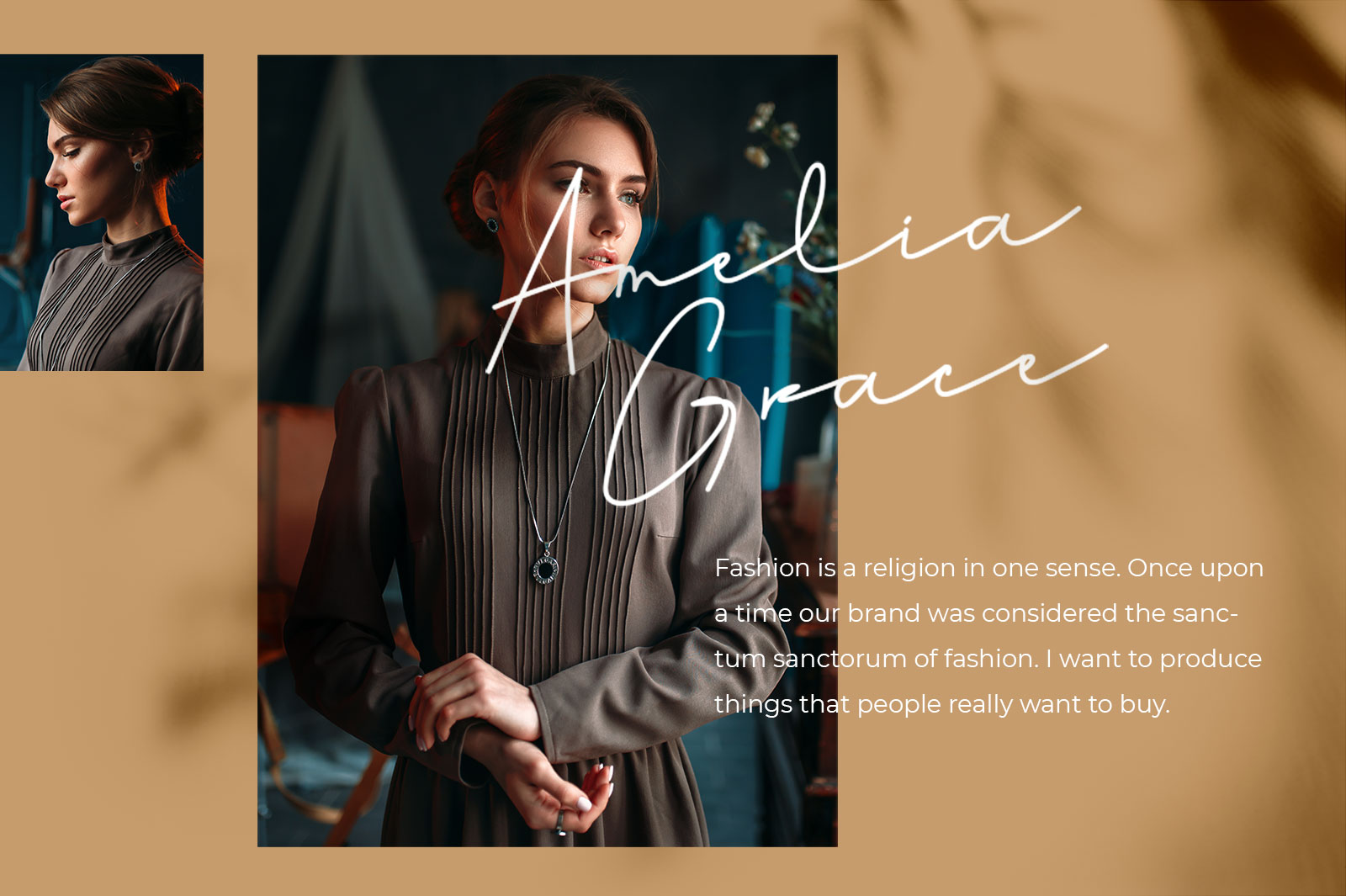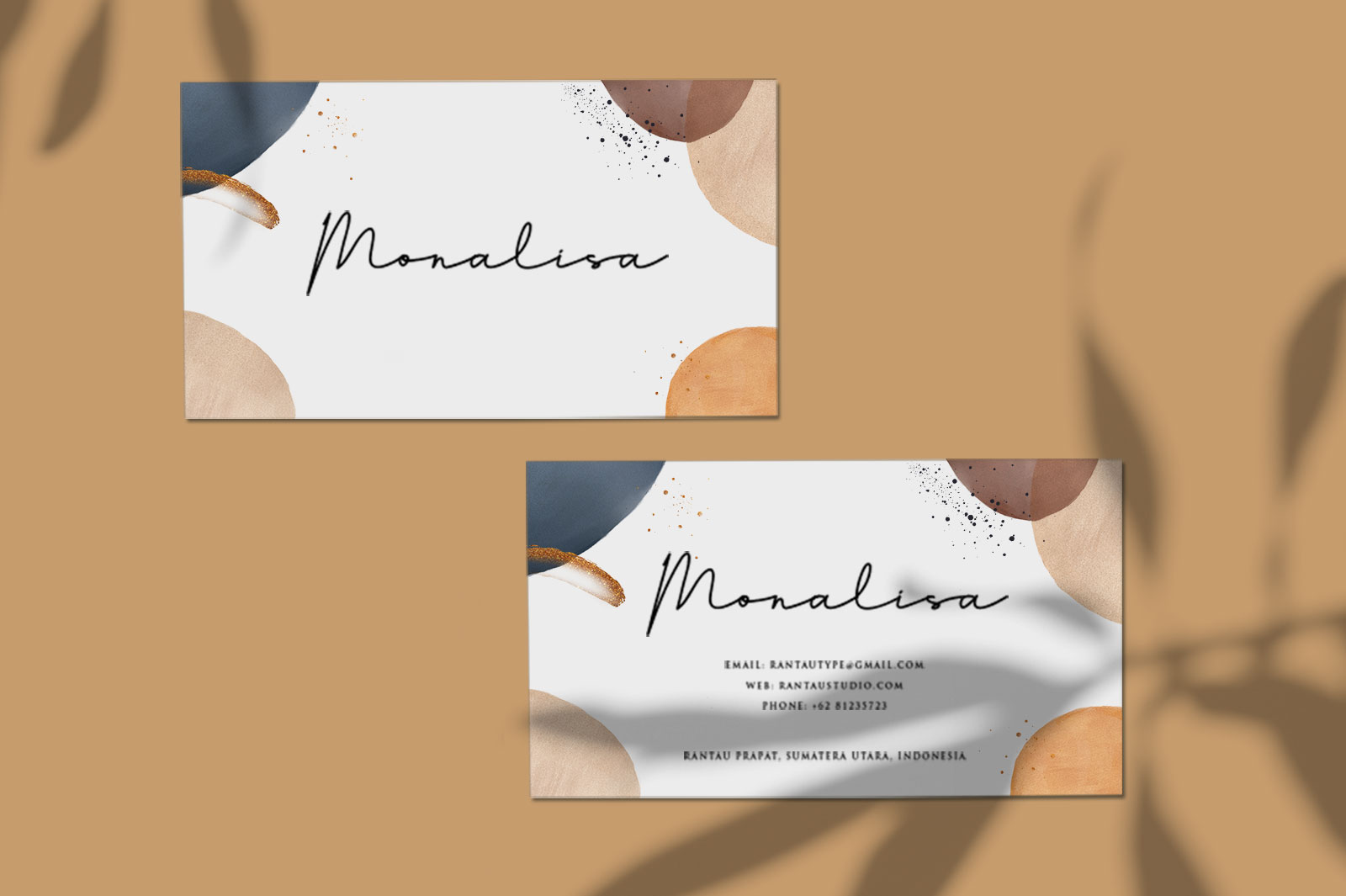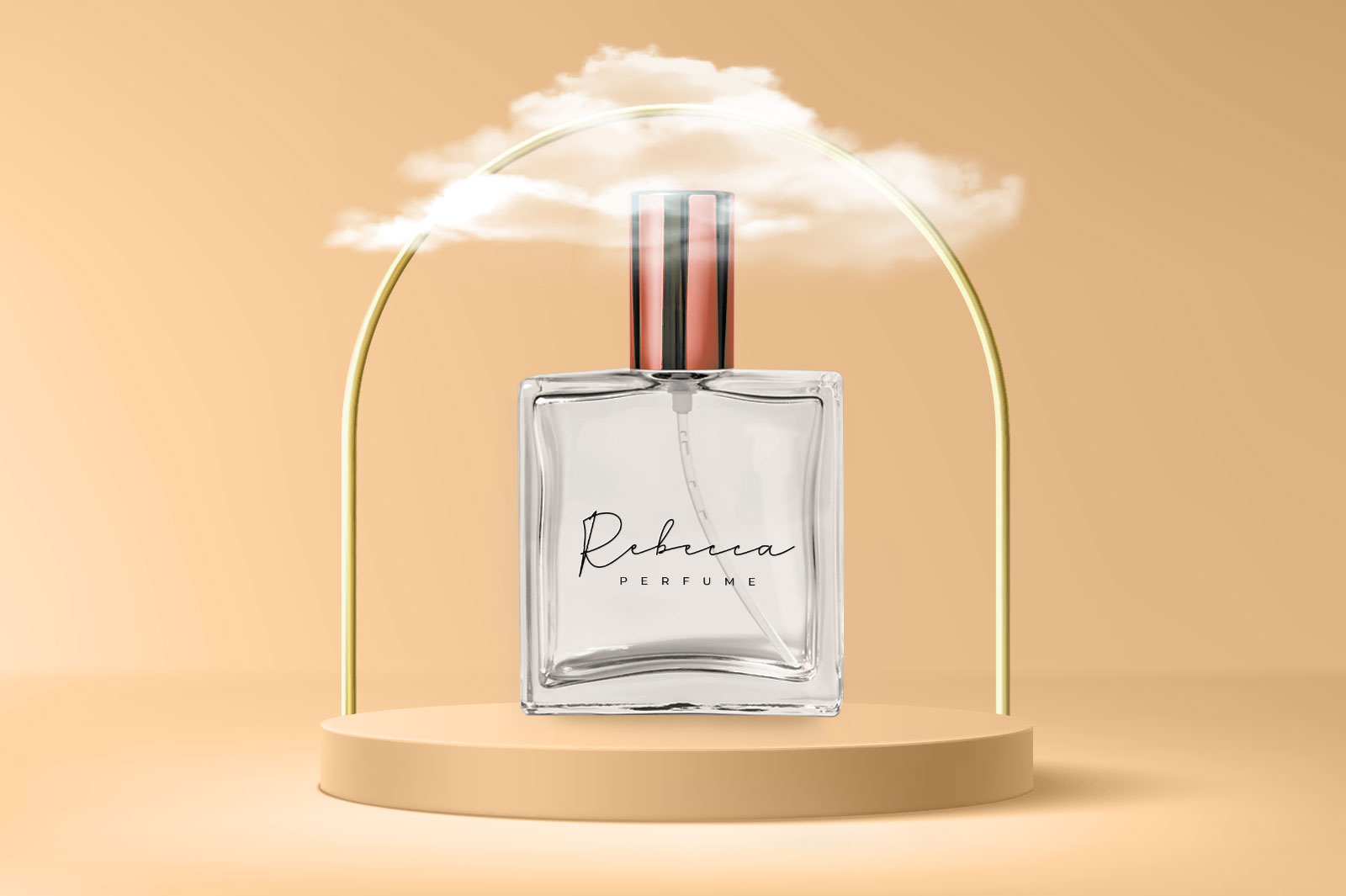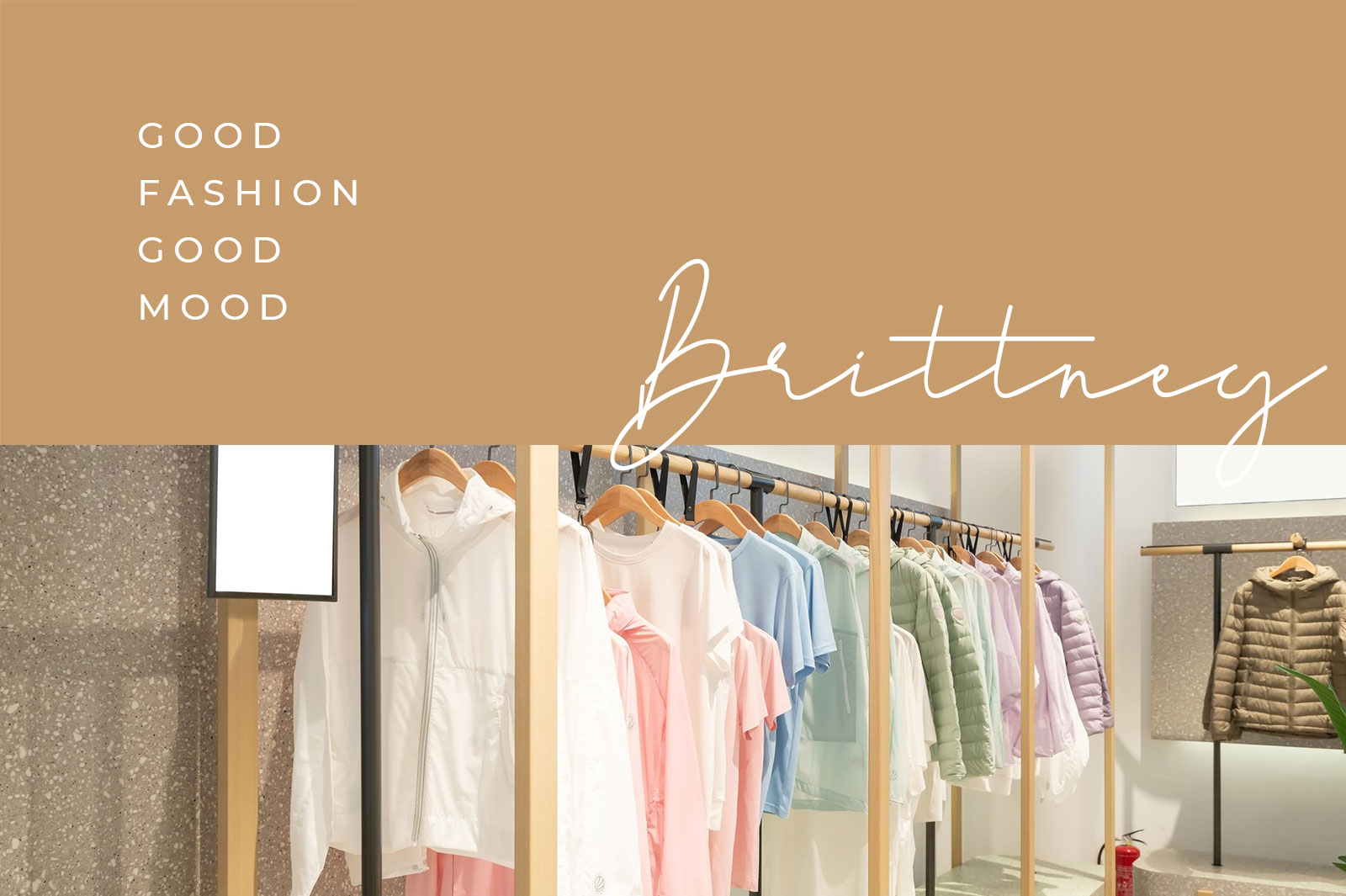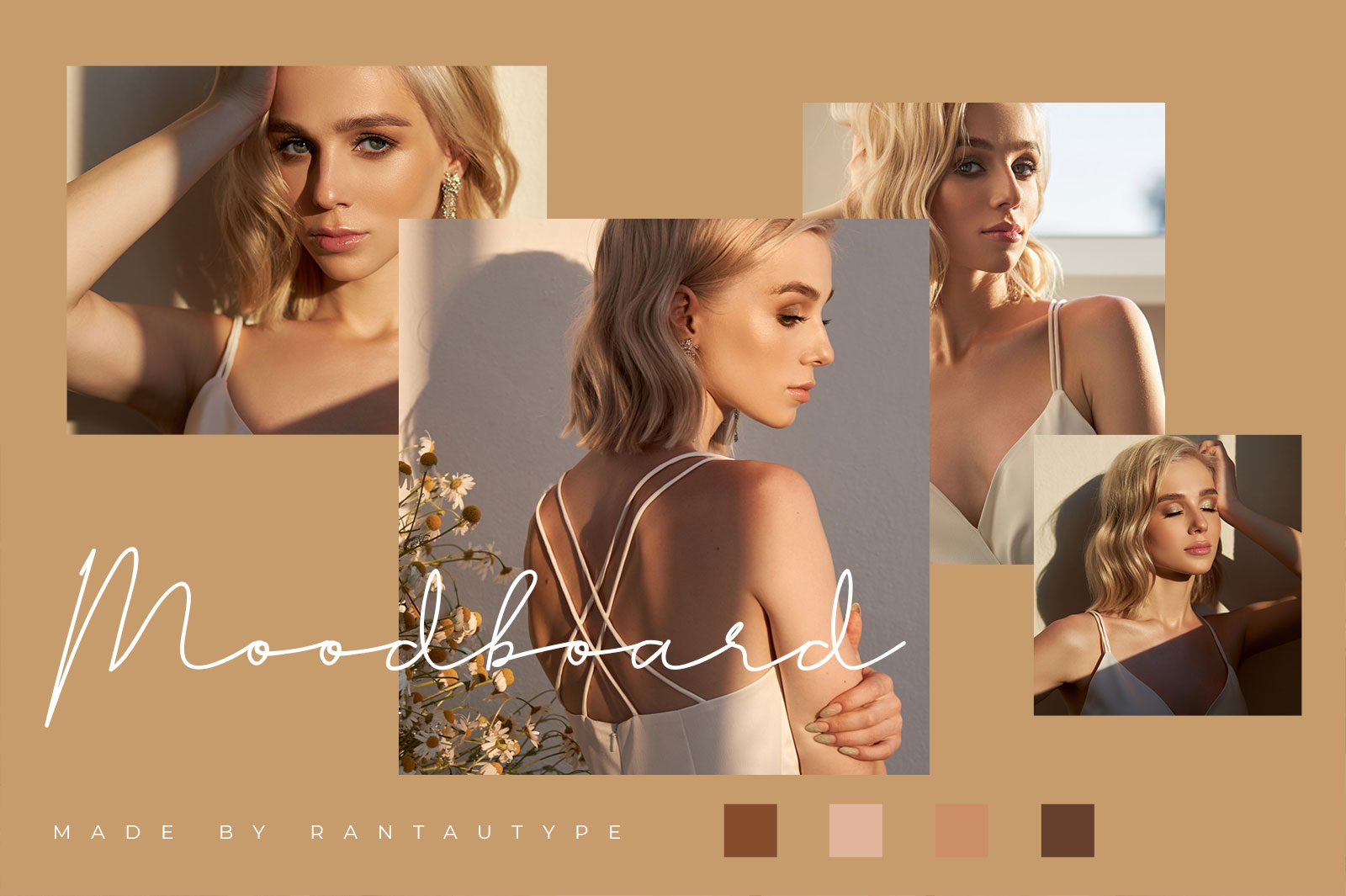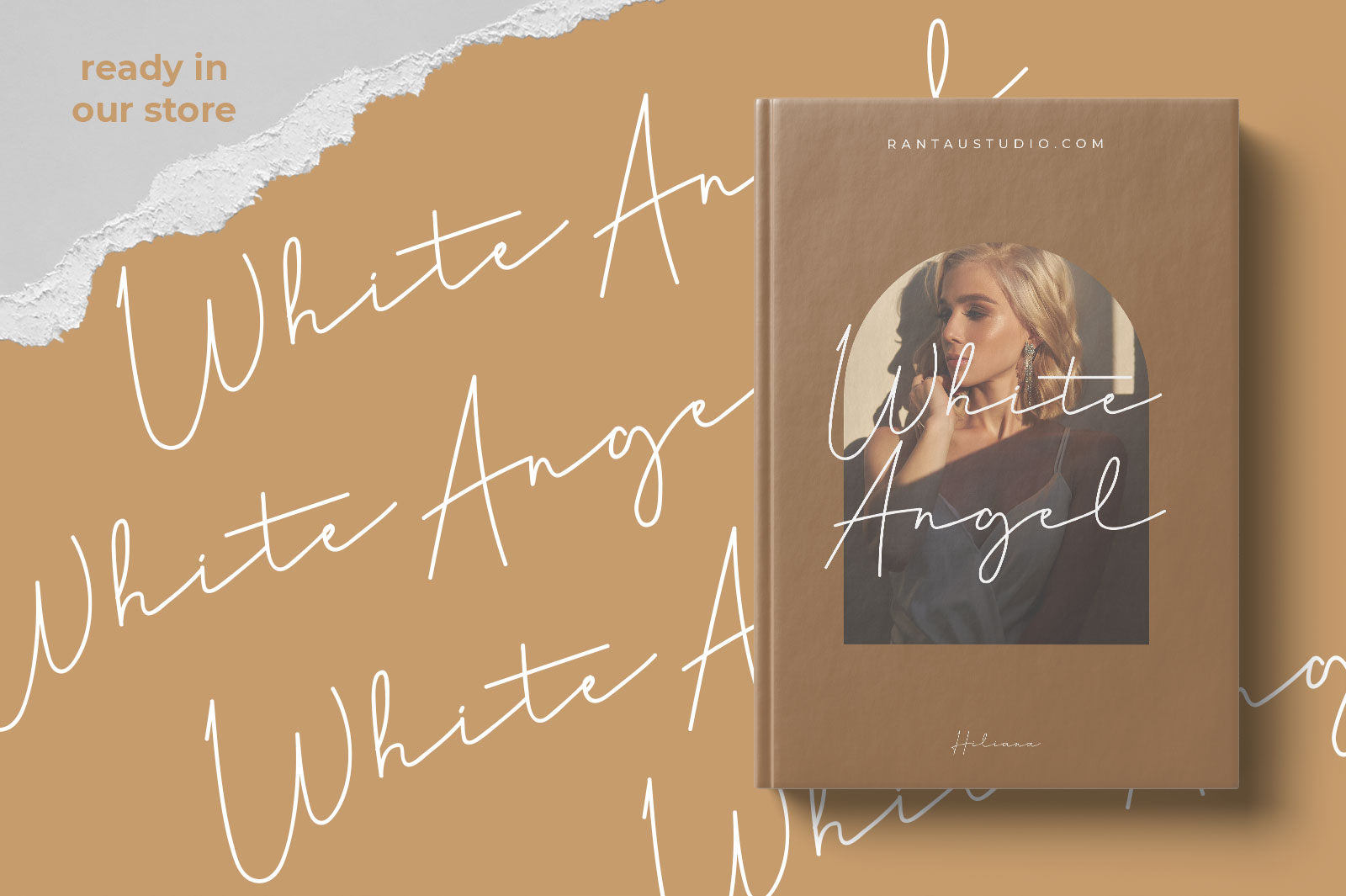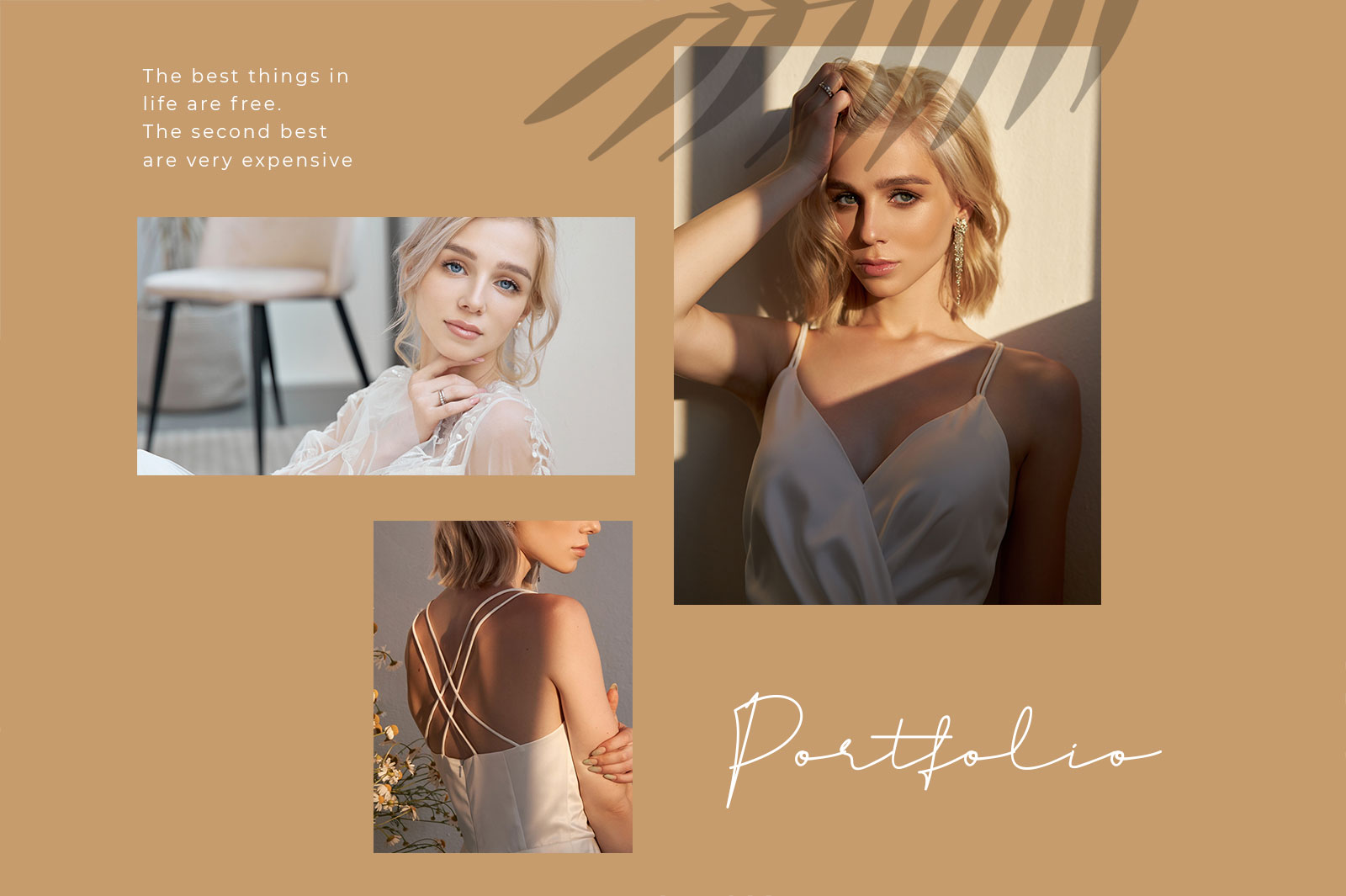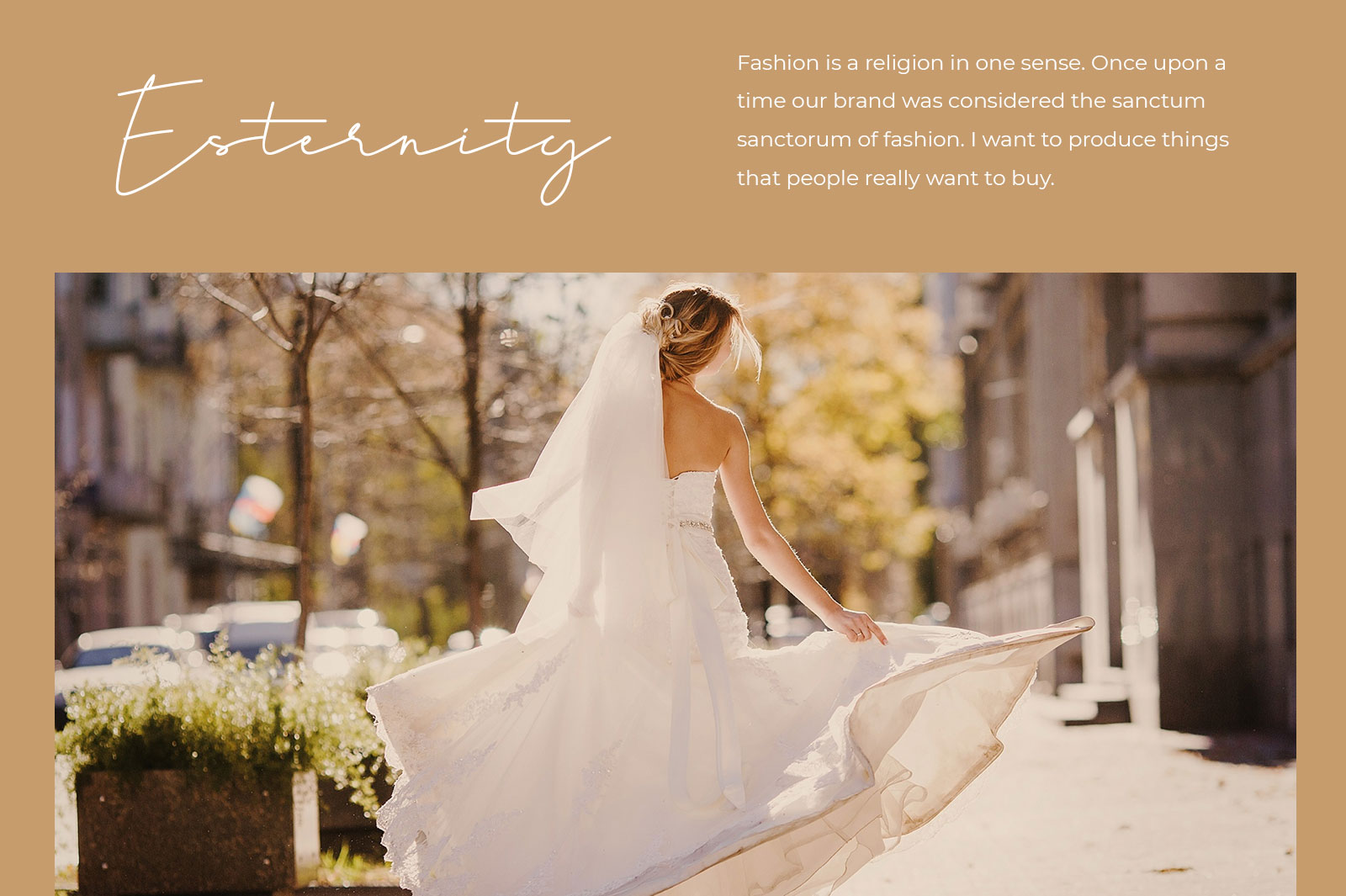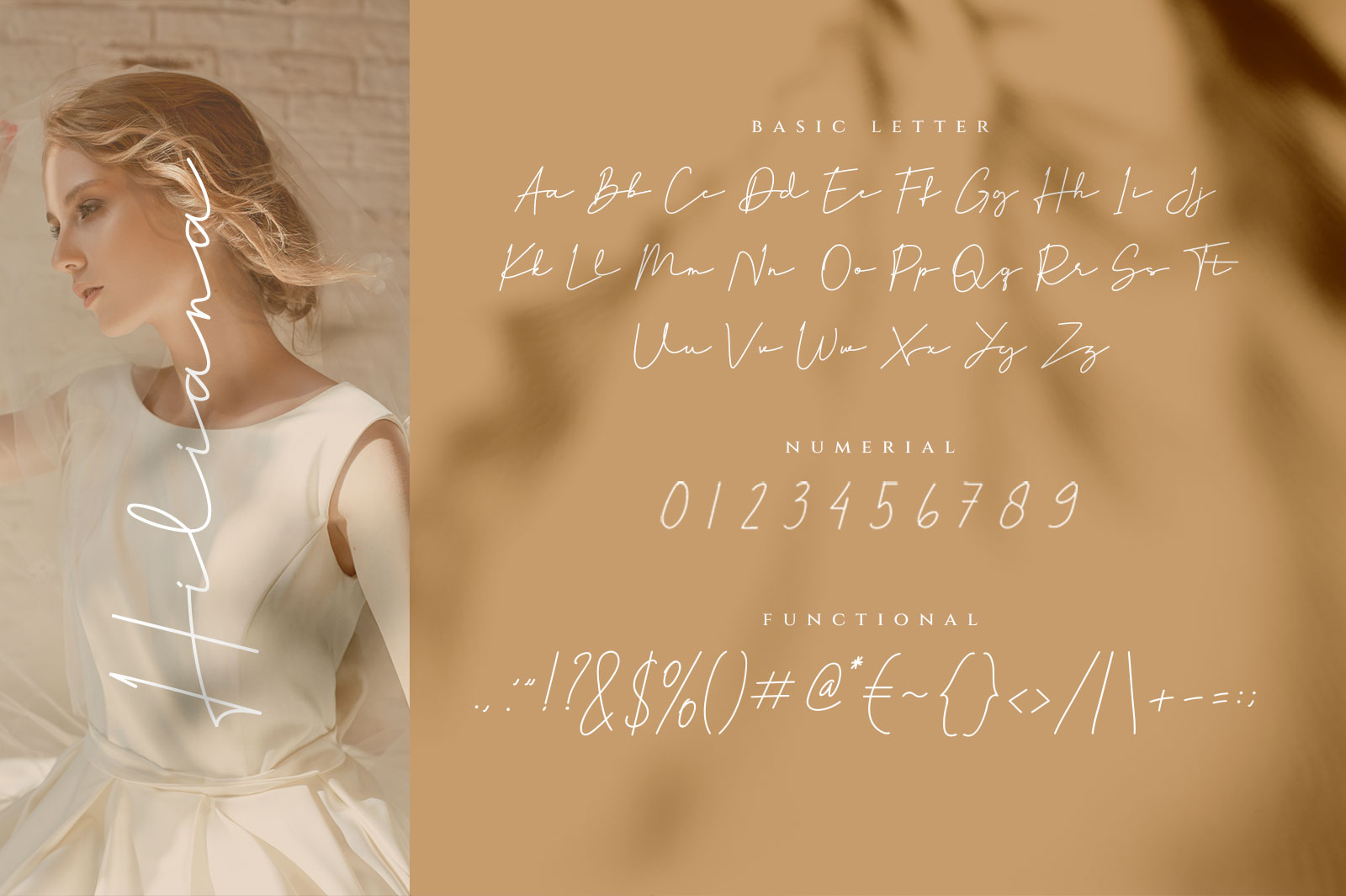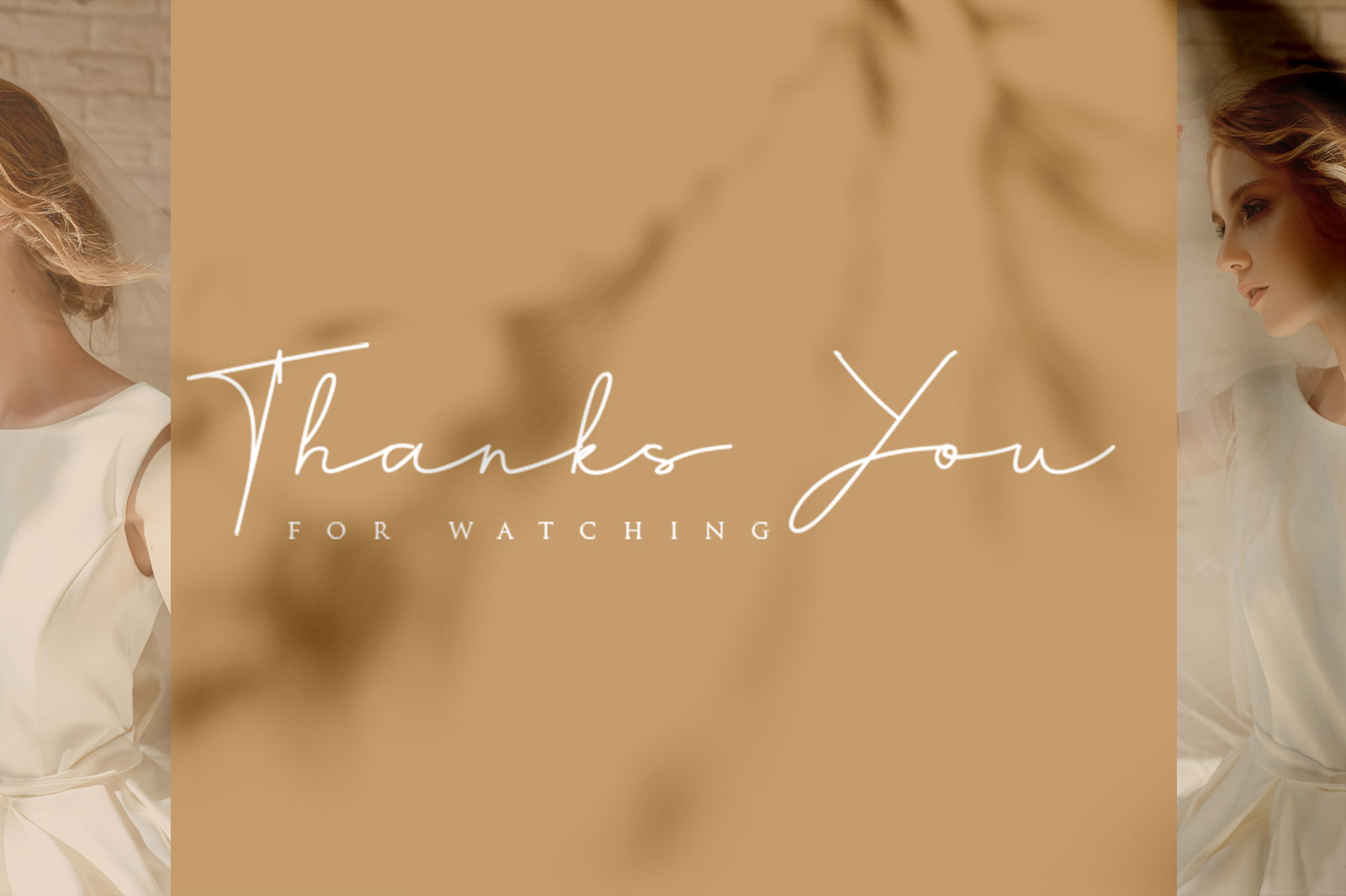
Hiliana Handwritten font
Hiliana is a classy signature font. Its characteristic flow and signature style makes it perfect to use for logos, handwritting, signatures, quotes, badges, labels, packaging design, blog headlines or simply use it in your next design project.
• Alternates
• Uppercase and Lowercase letters
• Numbering and Punctuations
• Multilingual Support